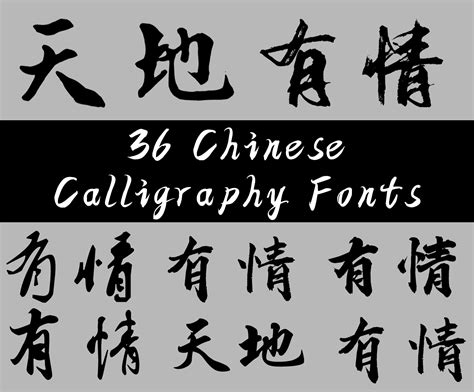
Centennial of Zhongshan SemiCursive Script Chinese Font Style Manual
Chinese Cursive Font. Zhimang is a classic running script based on the handwritten calligraphy of wei zhimang.
Zhimang is a classic running script based on the handwritten calligraphy of wei zhimang.
Zhimang is a classic running script based on the handwritten calligraphy of wei zhimang. Zhimang is a classic running script based on the handwritten calligraphy of wei zhimang.